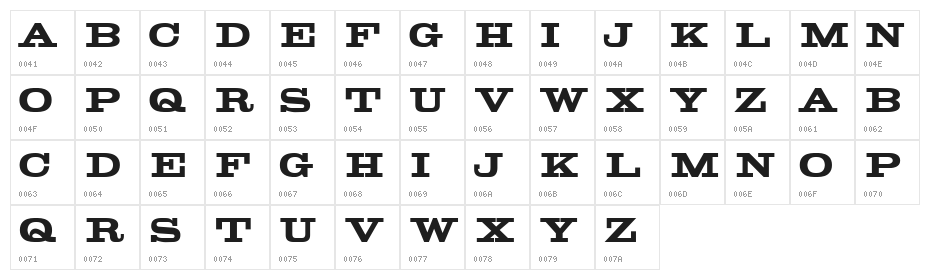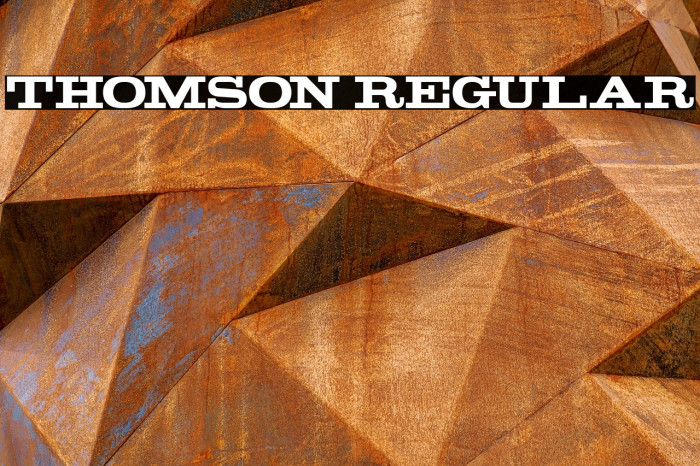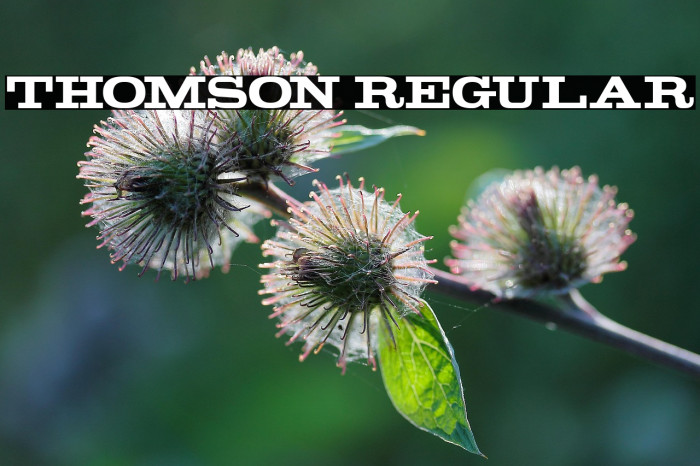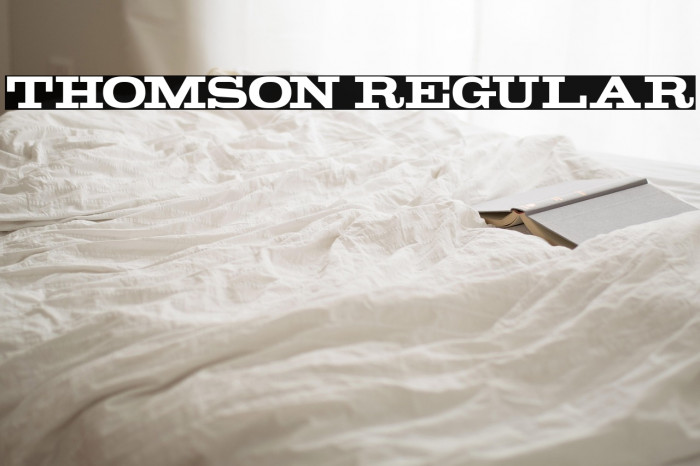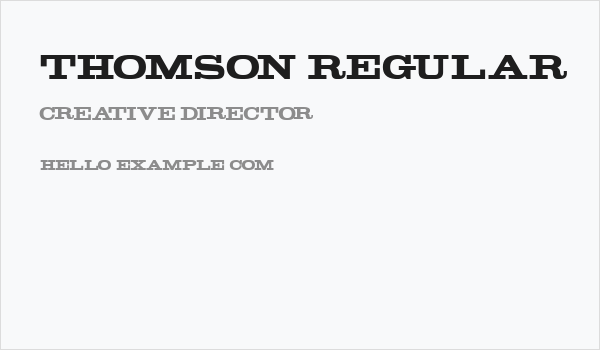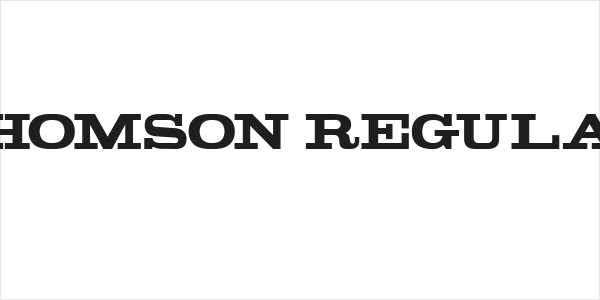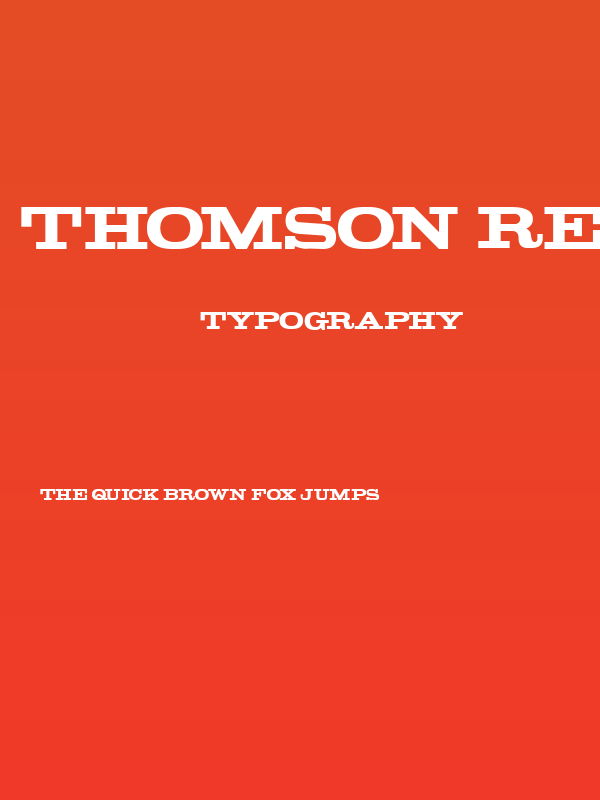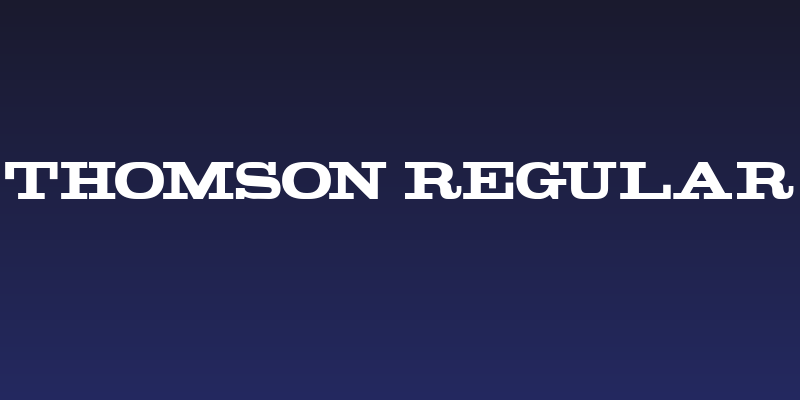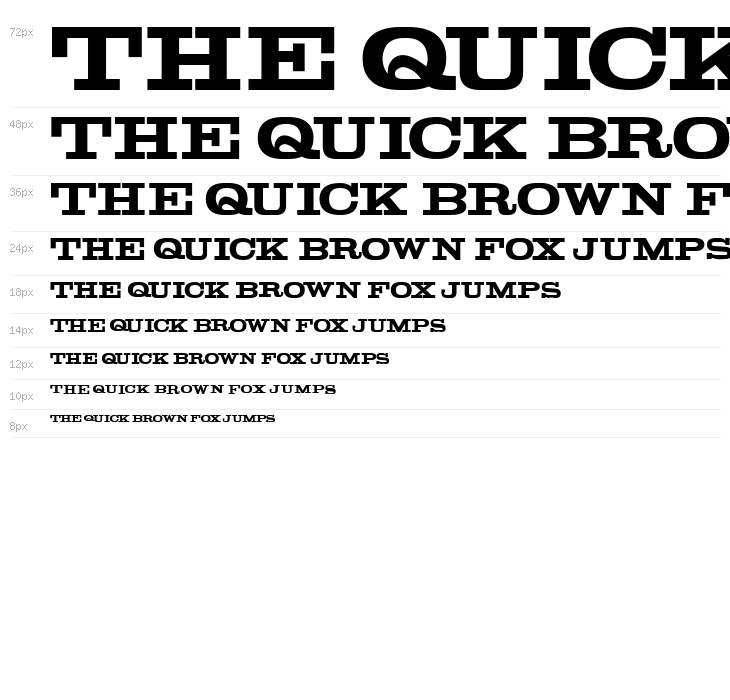
Thomson Regular Font
Thomson Regular Description
This font features bold, strong characters with a distinct slab serif style. The letters exhibit a robust and sturdy appearance, making them ideal for impactful headlines and titles. The serifs are pronounced and add a classic touch to the overall design. The font maintains a consistent weight throughout, providing a uniform look that is both professional and authoritative. The spacing between characters is normal, ensuring readability while maintaining its bold presence. This font is well-suited for projects that require a commanding and confident typeface.
| Proposed Projects | Ideal for headlines, posters, branding, and any design needing a strong, authoritative typeface. |